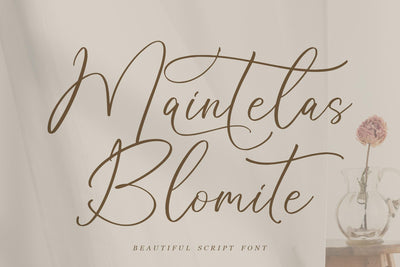
Maintelas Blomite - Beautiful Script Font
Proudly present Maintelas Blomite - Beautiful Script Font , created by Storytype,
A luxury script that has own unique style & modern look.